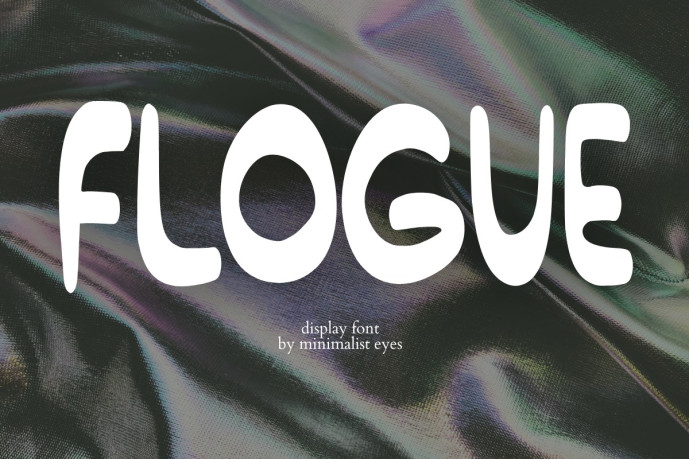
Flogue Font
Designer: Minimalist Eyes
Flogue is a playful and modern display font that brings a fresh, organic vibe to your designs. With its bold, rounded letterforms and soft, flowing curves, this typeface radiates personality and charm while maintaining a clean, minimalist feel. Its smooth contours and slightly quirky shapes make it perfect for projects that demand creativity and individuality, from branding and logos to social media graphics, packaging, and editorial layouts.
Versatile and eye-catching, Flogue adapts effortlessly to both casual and contemporary aesthetics, ensuring your text always stands out with style and confidence.